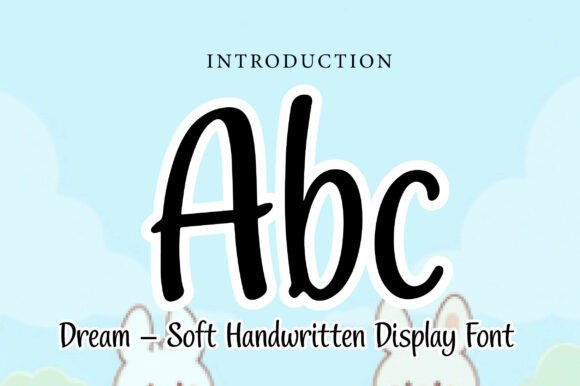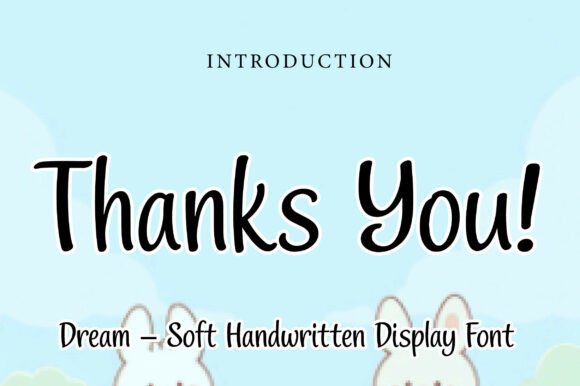
Introducing Dream Font: The Soft Handwritten Display Font for Elegant Designs
Are you looking for a font that can add a touch of elegance and serenity to your designs? Look no further than Dream Font, a beautiful soft handwritten display font that embodies the tranquility of a gentle lullaby. With its smoothly rendered curves, rounded strokes, and natural flow, Dream Font is the perfect choice for designers and crafters who want to create sophisticated and modern designs.
The Characteristics of Dream Font
Dream Font is a chic and soothing font that infuses your works with a blissful resonance, making it particularly suitable for branding, social media posts, attractive packaging, and contemporary, creative ventures. Its exquisite charm lies in its clean, handwritten style, which enhances its versatility and makes it fitting for a wide spectrum of creative needs.
Some of the key characteristics of Dream Font include:
- Smoothly rendered curves and rounded strokes for a soft and elegant look
- Natural flow that crafts a serene atmosphere
- Clean and handwritten style for a personal touch
- Balanced proportions for a harmonious design
Uses of Dream Font
Dream Font is a versatile font that can be used for a variety of design projects, including:
- Designing unique logos that require a touch of elegance
- Curating captivating social media graphics that stand out
- Creating attractive packaging that reflects your brand’s personality
- Designing greeting cards, personal quotes, and eye-catching posters
- Crafting stylish website banners that capture attention
Why Choose Dream Font?
There are many reasons why Dream Font is an excellent choice for designers and crafters, including:
- Its unique and elegant style sets it apart from other fonts
- Its versatility makes it suitable for a wide range of design projects
- Its clean and handwritten style adds a personal touch to your designs
- Its balanced proportions ensure harmonious designs
Tips for Using Dream Font
To get the most out of Dream Font, here are some tips to keep in mind:
- Use it for headlines and titles to add a touch of elegance
- Pair it with other fonts to create a unique and interesting design
- Use it consistently across your designs to create a cohesive brand identity
In conclusion, Dream Font is a beautiful and versatile font that can add a touch of elegance and serenity to your designs. With its smoothly rendered curves, rounded strokes, and natural flow, it’s the perfect choice for designers and crafters who want to create sophisticated and modern designs. Whether you’re working on branding, social media posts, packaging, or creative ventures, Dream Font is an excellent choice.